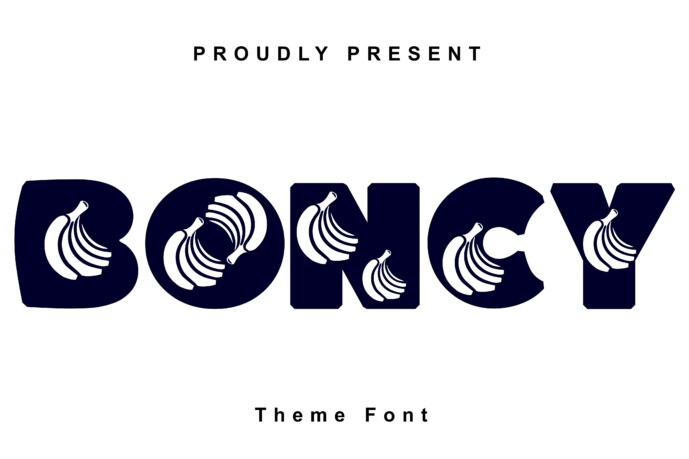
Boncy Font
Abound in the charm of Boncy—a bewitching typeface that effortlessly embodies the exhilaration and charm of childhood. Born from the depths of juvenile wonderment, this font masterfully merges lively glyphs with energetic alphabets, transitioning mundane characters into a remarkable visual extravaganza.
A rare amalgamation of creativity and craftsmanship, Boncy stands as the perfect asset for a myriad of artistic expeditions, encompassing engaging teaching aids, delightful children’s literature, or radiant brand assignments craving that additional dash of whimsy and merriment. Engulf in the mesmerizing charm of minimalism with Boncy, integrating a youthful zest into designs that aim to both enamor and excite.